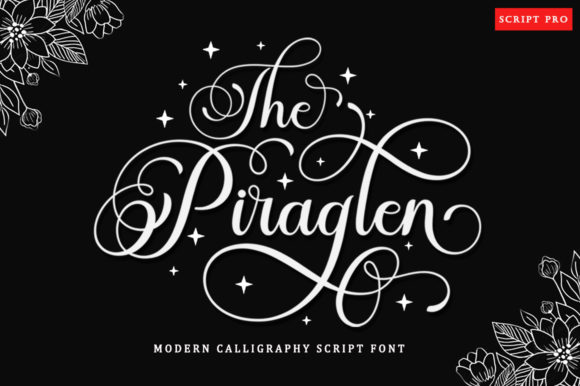
Experience the magic of The Piraglen Font, a captivating script font that will transform your designs into works of art. Unleash your creativity and add a touch of elegance to your wedding photos, invitations, thank you cards, quotes, greeting cards, logos, and business cards. With its beautiful handwritten style, The Piraglen Font will leave a lasting impression, evoking a sense of charm and sophistication.
As a contemporary masterpiece, The Piraglen Font is meticulously crafted to evoke emotions and create a lasting impact. Its graceful strokes and delicate curves lend a timeless charm to your designs, making them stand out from the ordinary. Whether you're a professional designer or a creative enthusiast, The Piraglen Font will become your go-to choice for projects that demand a touch of elegance and uniqueness.
Designed with versatility in mind, The Piraglen Font complements various design styles, allowing you to explore a wide range of creative possibilities. From rustic wedding invitations to modern business cards, this font seamlessly adapts to your vision, adding a touch of sophistication and individuality.
The Piraglen Font comes with a comprehensive set of glyphs and swashes, easily accessible through PUA encoding. Unleash your creativity and explore endless possibilities to create captivating designs that captivate and inspire. Transform your projects into masterpieces with The Piraglen Font, the ultimate choice for those who appreciate the finer details.
Don't settle for ordinary fonts. Embrace the beauty of The Piraglen Font and embark on a journey of creativity and self-expression. Let your designs speak volumes with this exceptional font, leaving a lasting impression on your audience. Experience the magic of The Piraglen Font today and elevate your designs to new heights.